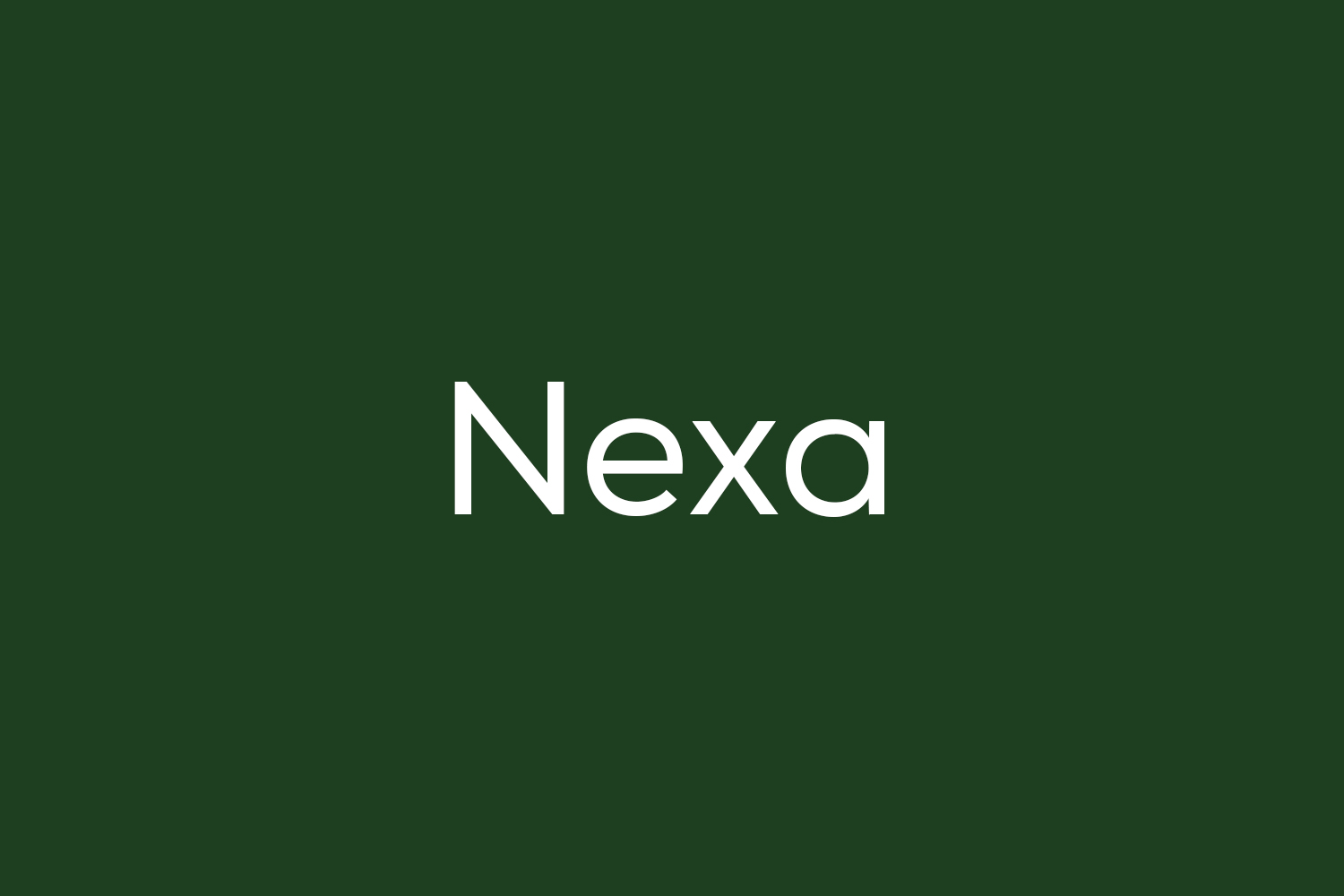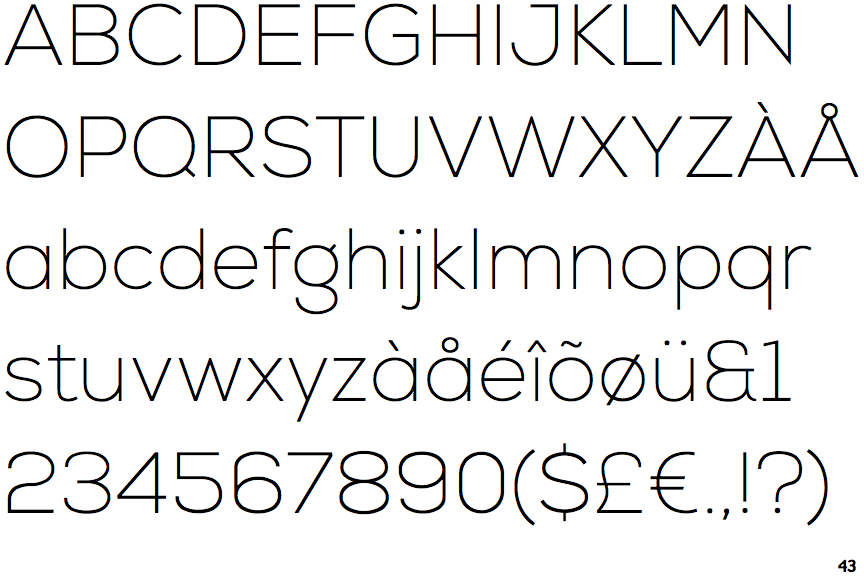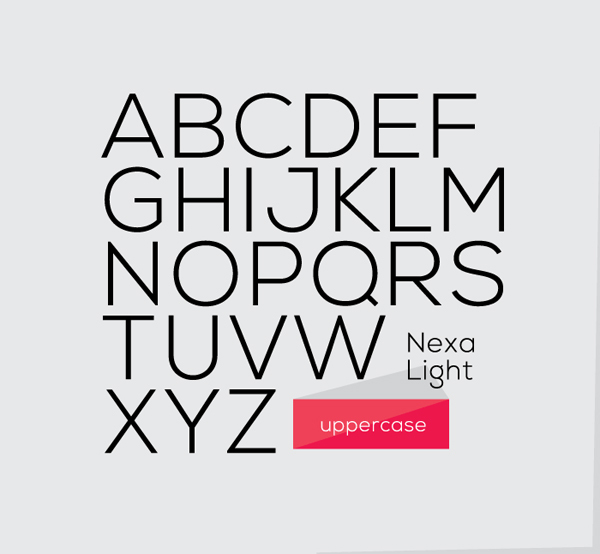
Nexa Light Font - It is part of the nexa sans. It is one of the fonts by fontfabric.com that you can download for. Nexalight is a regular font with 232 characters and fixed encoding scheme. Download the font or customize the. Download nexa light free font. The completely refined family design comes with an addition of one more weight—extra. Nexa light is a modern sans serif font with a geometric touch, designed by svetoslav simov. Nexalight is a free font by svetoslav simov with 232 characters in regular weight. Introducing nexa sans serif family.
It is part of the nexa sans. Nexalight is a free font by svetoslav simov with 232 characters in regular weight. Nexa light is a modern sans serif font with a geometric touch, designed by svetoslav simov. It is one of the fonts by fontfabric.com that you can download for. Nexalight is a regular font with 232 characters and fixed encoding scheme. Download nexa light free font. The completely refined family design comes with an addition of one more weight—extra. Introducing nexa sans serif family. Download the font or customize the.
Download nexa light free font. It is part of the nexa sans. Introducing nexa sans serif family. Nexalight is a free font by svetoslav simov with 232 characters in regular weight. It is one of the fonts by fontfabric.com that you can download for. Nexalight is a regular font with 232 characters and fixed encoding scheme. Nexa light is a modern sans serif font with a geometric touch, designed by svetoslav simov. The completely refined family design comes with an addition of one more weight—extra. Download the font or customize the.
Introducing nexa sans serif family. Download the font or customize the. It is part of the nexa sans. Nexalight is a free font by svetoslav simov with 232 characters in regular weight. Nexalight is a regular font with 232 characters and fixed encoding scheme.
It is one of the fonts by fontfabric.com that you can download for. Download nexa light free font. Nexalight is a free font by svetoslav simov with 232 characters in regular weight. Nexalight is a regular font with 232 characters and fixed encoding scheme. Introducing nexa sans serif family.
It is part of the nexa sans. Nexa light is a modern sans serif font with a geometric touch, designed by svetoslav simov. Download nexa light free font. Nexalight is a regular font with 232 characters and fixed encoding scheme. Nexalight is a free font by svetoslav simov with 232 characters in regular weight.
It is one of the fonts by fontfabric.com that you can download for. Nexalight is a free font by svetoslav simov with 232 characters in regular weight. Introducing nexa sans serif family. The completely refined family design comes with an addition of one more weight—extra. Nexa light is a modern sans serif font with a geometric touch, designed by svetoslav.
Download nexa light free font. Nexalight is a regular font with 232 characters and fixed encoding scheme. Nexa light is a modern sans serif font with a geometric touch, designed by svetoslav simov. Introducing nexa sans serif family. It is one of the fonts by fontfabric.com that you can download for.
It is one of the fonts by fontfabric.com that you can download for. Nexalight is a free font by svetoslav simov with 232 characters in regular weight. Download nexa light free font. It is part of the nexa sans. Download the font or customize the.
Download nexa light free font. The completely refined family design comes with an addition of one more weight—extra. Nexa light is a modern sans serif font with a geometric touch, designed by svetoslav simov. Nexalight is a free font by svetoslav simov with 232 characters in regular weight. It is one of the fonts by fontfabric.com that you can download.
Introducing nexa sans serif family. Nexa light is a modern sans serif font with a geometric touch, designed by svetoslav simov. Nexalight is a regular font with 232 characters and fixed encoding scheme. Nexalight is a free font by svetoslav simov with 232 characters in regular weight. Download nexa light free font.
Nexa light is a modern sans serif font with a geometric touch, designed by svetoslav simov. Introducing nexa sans serif family. Nexalight is a regular font with 232 characters and fixed encoding scheme. Download nexa light free font. The completely refined family design comes with an addition of one more weight—extra.
Introducing nexa sans serif family. It is part of the nexa sans. Nexalight is a free font by svetoslav simov with 232 characters in regular weight. Download the font or customize the. The completely refined family design comes with an addition of one more weight—extra.
Introducing Nexa Sans Serif Family.
Download the font or customize the. Nexalight is a free font by svetoslav simov with 232 characters in regular weight. Nexa light is a modern sans serif font with a geometric touch, designed by svetoslav simov. It is part of the nexa sans.
The completely refined family design comes with an addition of one more weight—extra. It is one of the fonts by fontfabric.com that you can download for. Nexalight is a regular font with 232 characters and fixed encoding scheme.